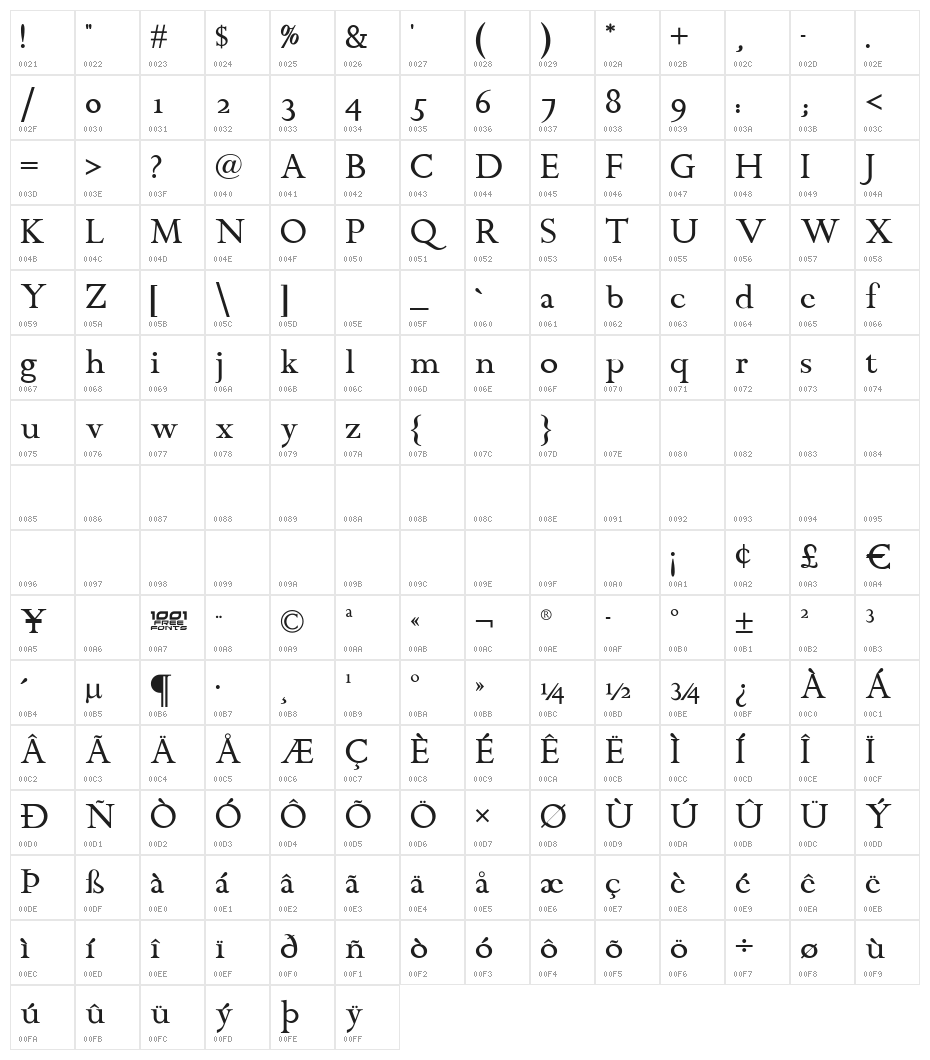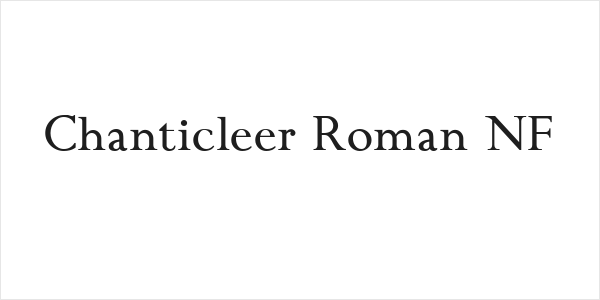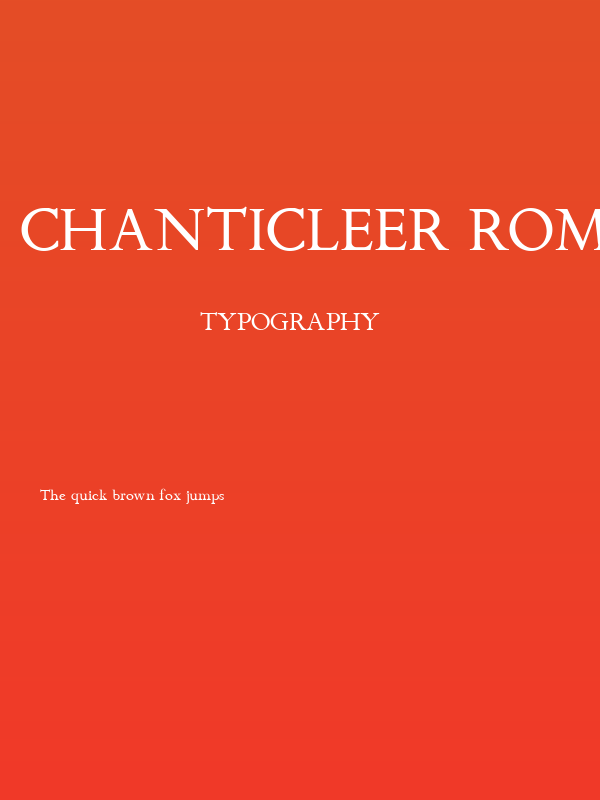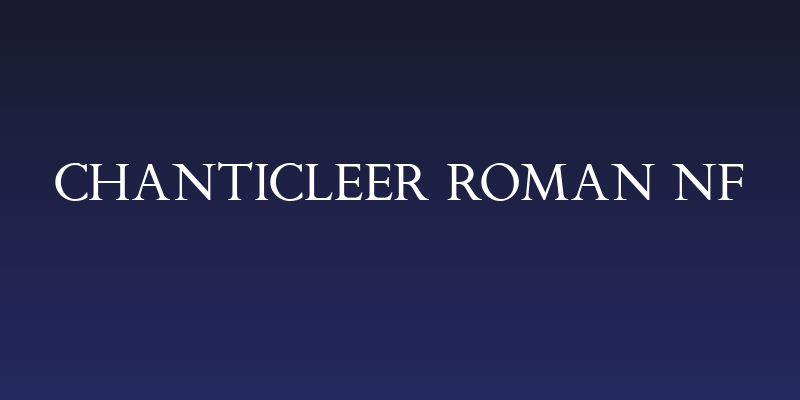
Chanticleer Roman NF Font
Chanticleer Roman NF Description
This font features a classic serif style with elegant and refined letterforms. The uppercase letters are bold and commanding, while the lowercase letters maintain a graceful and balanced appearance. The numerals are distinct and clear, providing excellent readability. Special characters are well-integrated, maintaining the overall aesthetic. The font's design is reminiscent of traditional Roman typefaces, offering a timeless and sophisticated look suitable for various applications.
| Proposed Projects | Ideal for book covers, formal invitations, branding, and editorial design. |